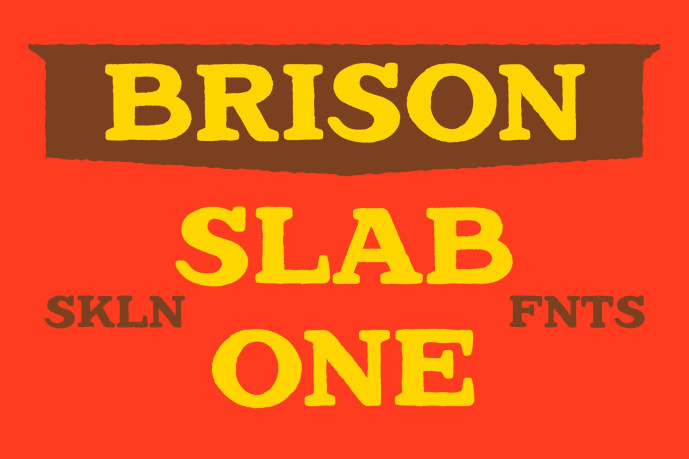
Brison Slab One Font
Designer: SkillineDesignCompany
Brison Slab One Font is a bold retro western font crafted for designers who want authentic vintage energy with strong commercial versatility. Inspired by classic smokehouse signage, desert roadside graphics, old ranch typography, western cinema posters, and vintage Americana packaging.